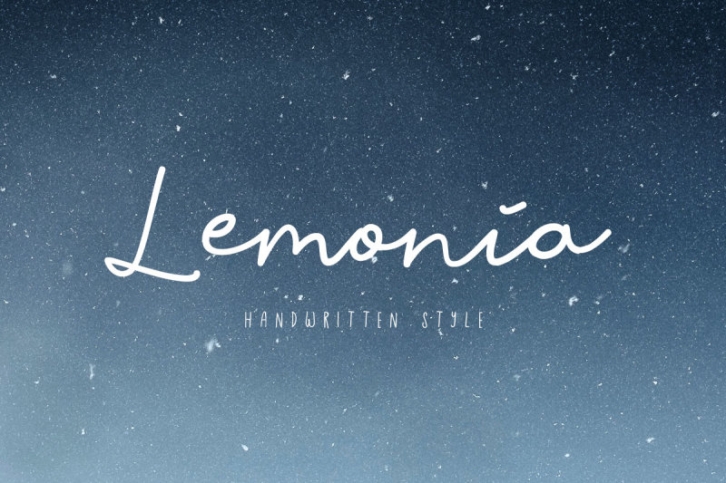
Lemonia is modern script font, every single letters have been carefully crafted to make your text looks beautiful. With modern script style this font will perfect for many different project ex: quotes, blog header, poster, wedding, branding, logo, fashion, apparel, letter, invitation, stationery, etc.